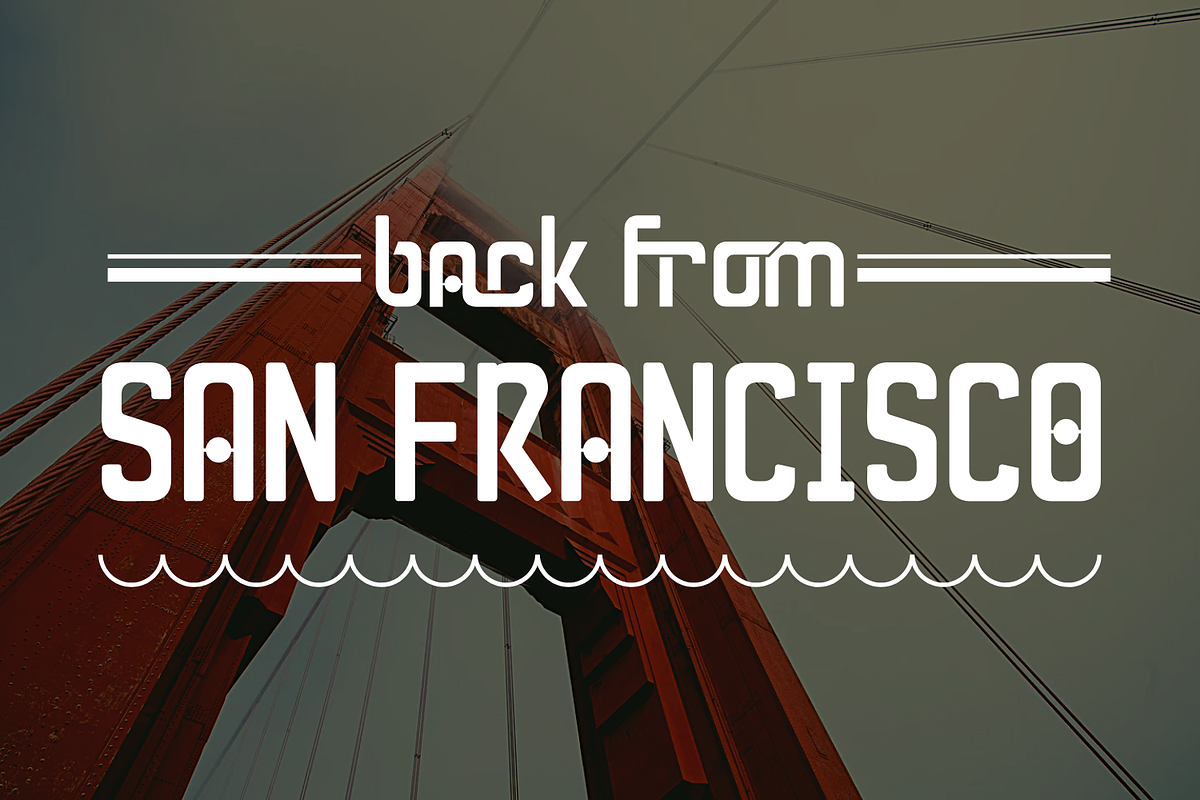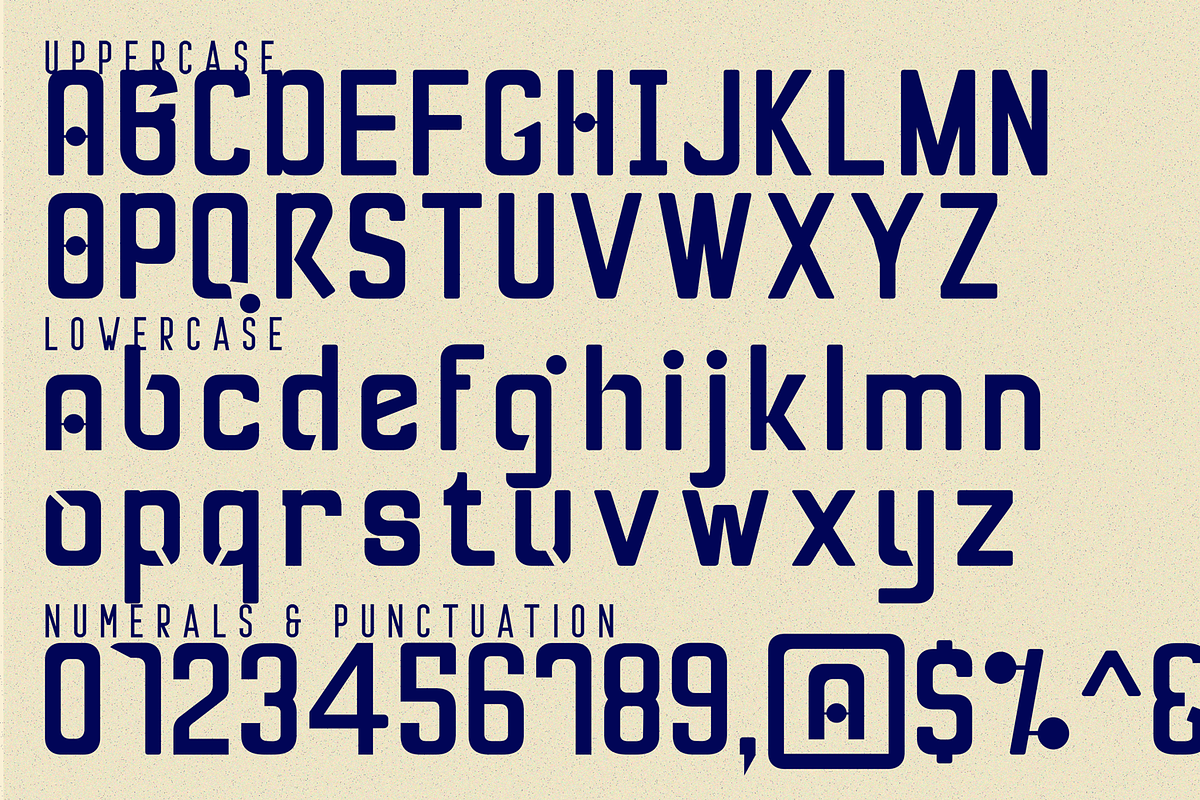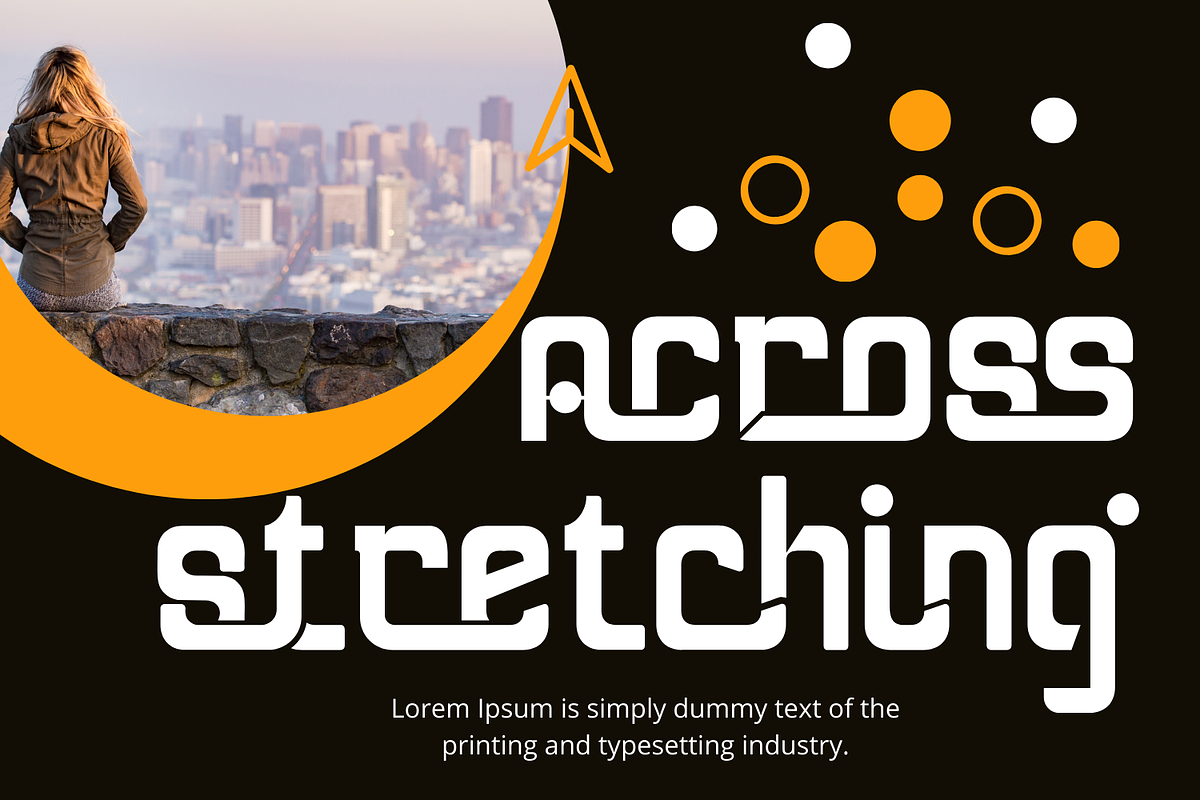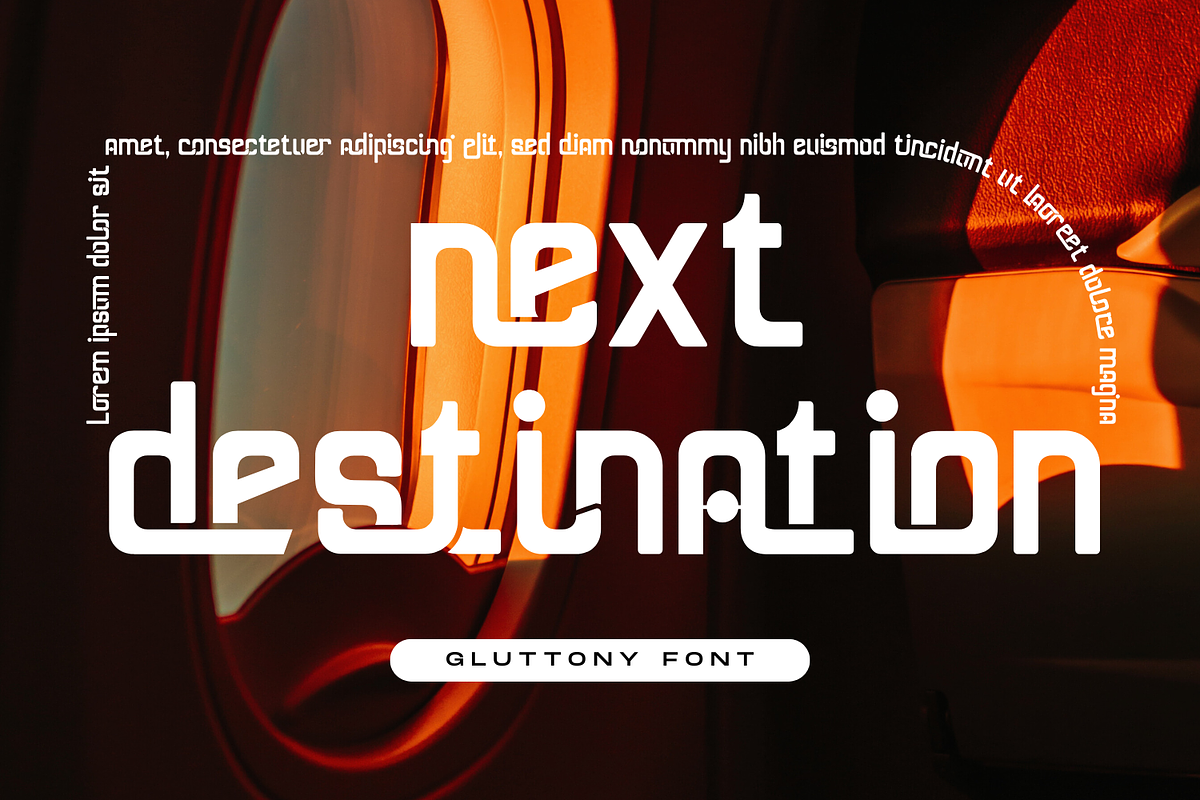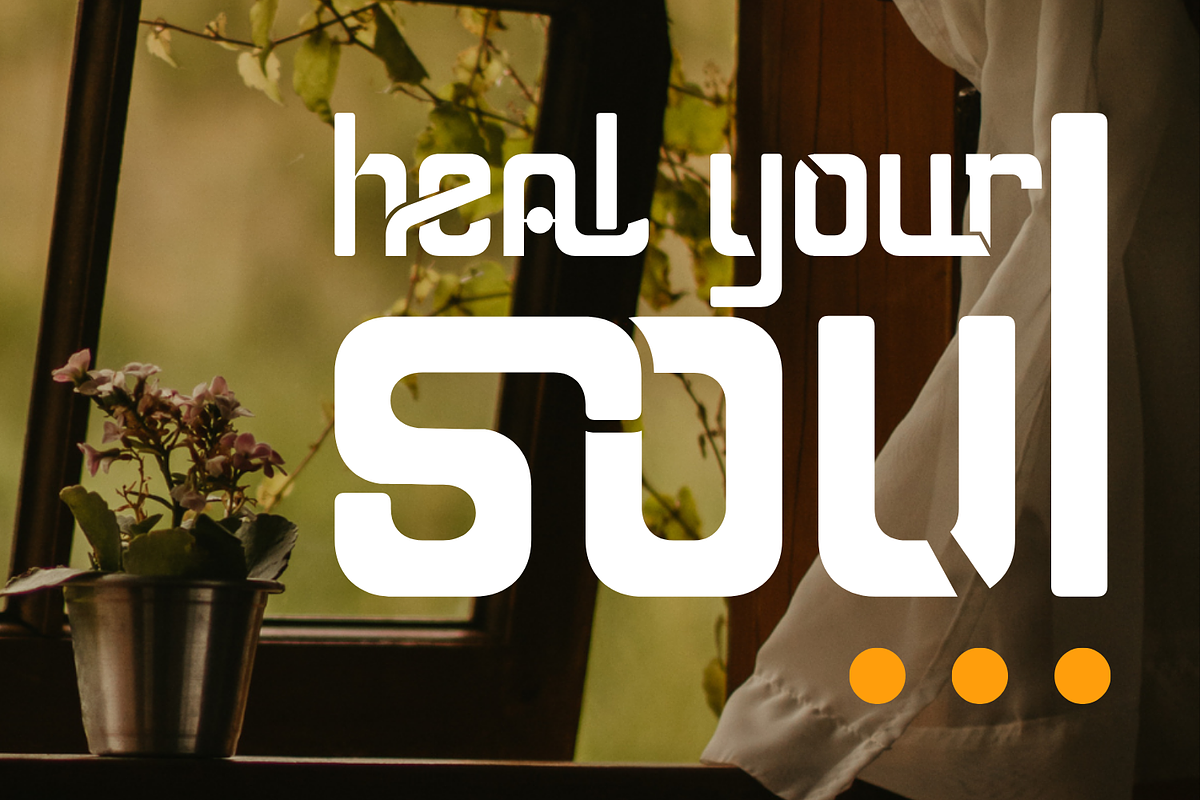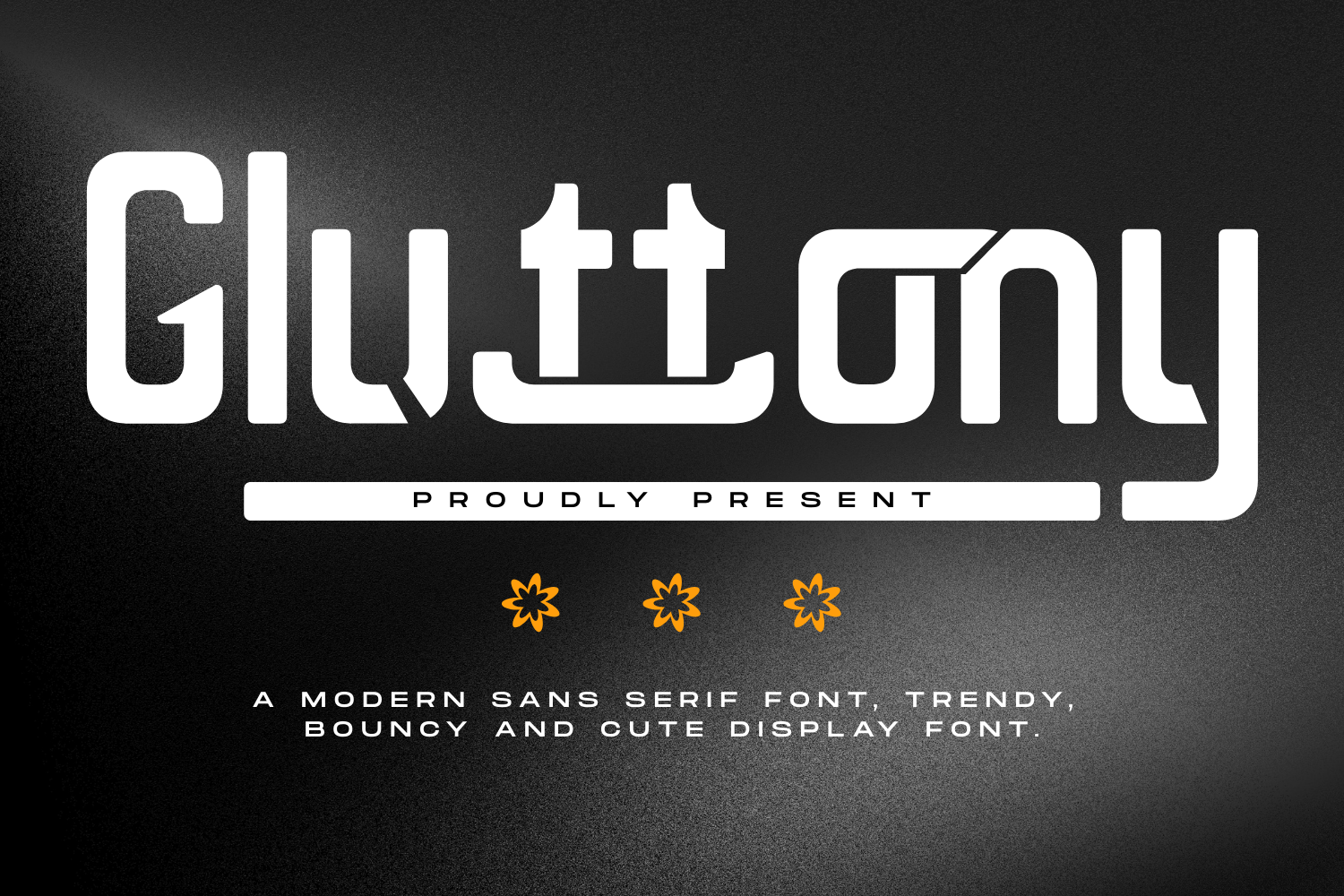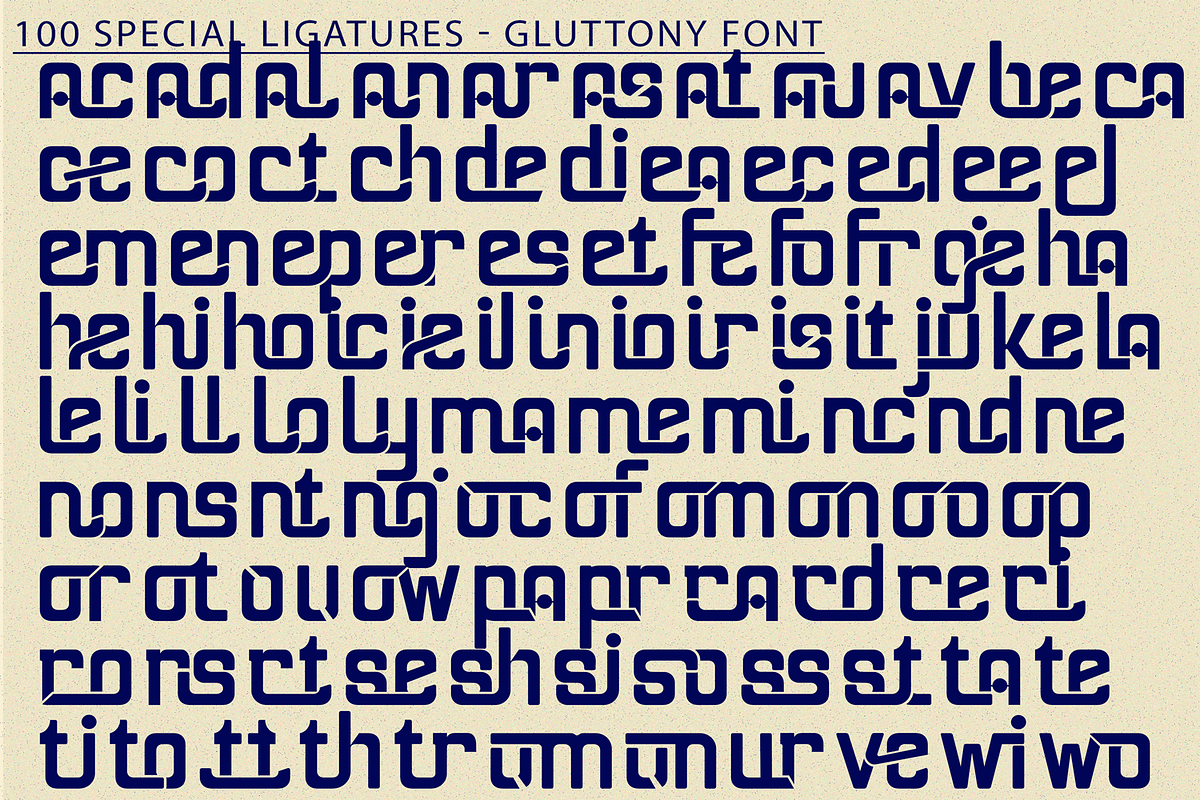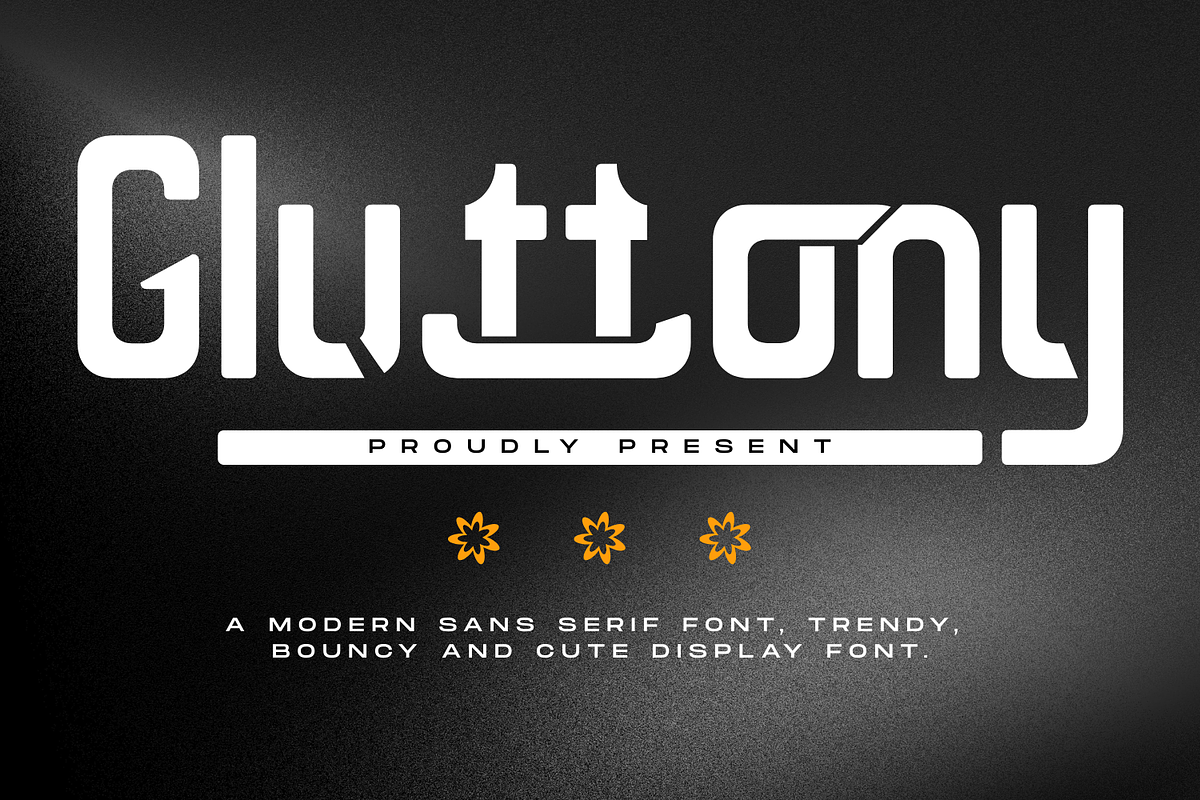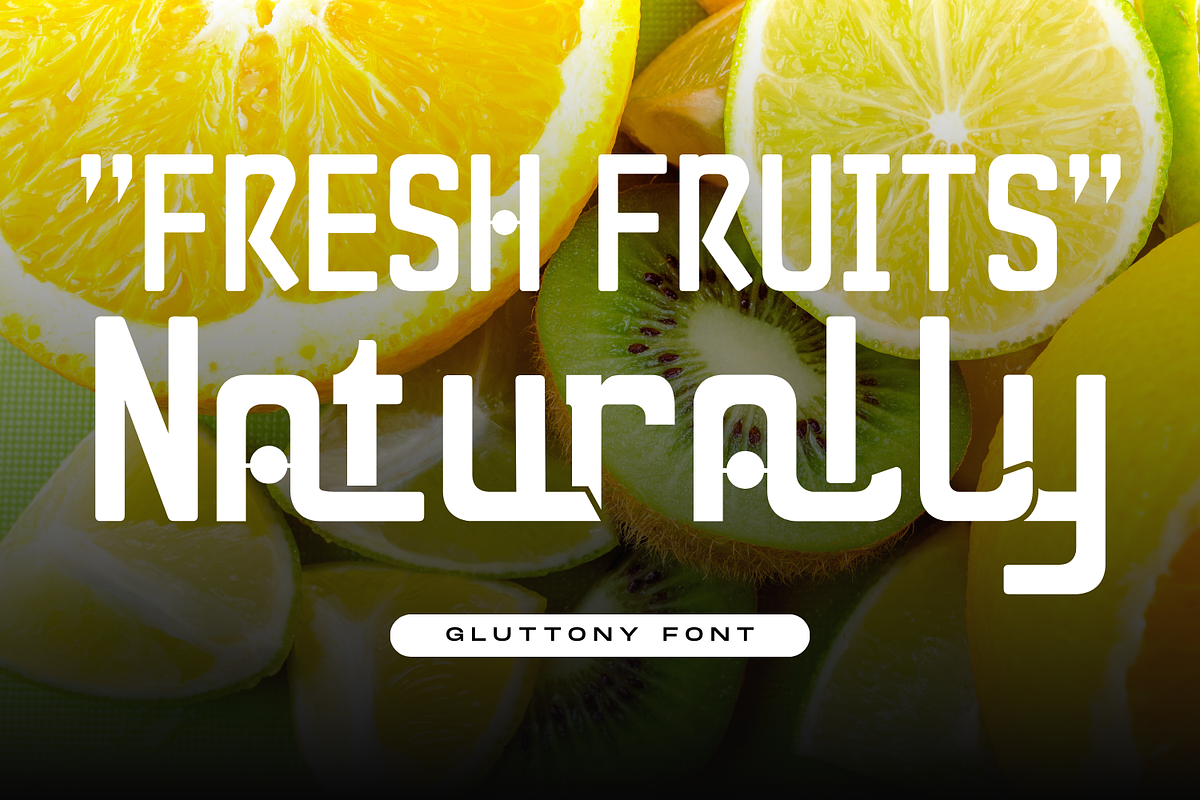
Gluttony Futuristic Font
Gluttony Futuristic Font – Futuristic Rounded Modular Display Font, a playful yet powerful rounded display typeface that redefines modular lettering with a fresh, futuristic twist. Built with geometric consistency and clever ligatures, this font blends bold structure, creative spirit, and tech appeal—perfect for digital branding and expressive visuals. Its standout ligatures add personality, making Gluttony an ideal choice for projects that want to be friendly yet high-impact.
- Full set of Uppercase & Lowercase Letters
- Over 100 Special Ligatures and unique stylistic constructions
- Numerals & Punctuation for functional design
- Accented Characters supporting multiple languages
About 100 ligatures combined with Stylistic Alternates Font:
ac ad al an ar as at au av be ca ce ch co ct de di ea ec ed ee el em en ep er es et fe fo fr ge ha he hi ho ie ic il in io ir is it ju ke la le li ll lo ly ma me mi nc nd ne ng no nt ns oc of om on oo op or ot ou ow pa pr ra rd re ri ro rs rt se sh si so ss st ta te th ti to tr tt um un ur ve wi wo